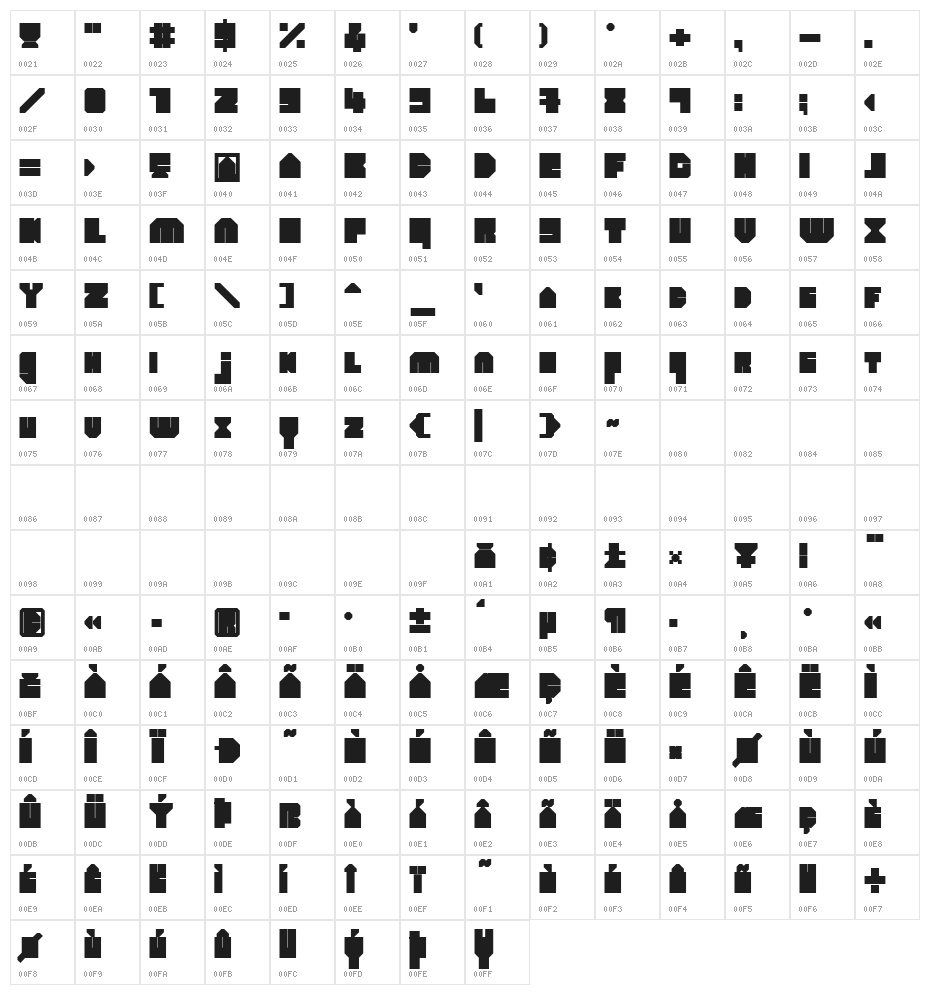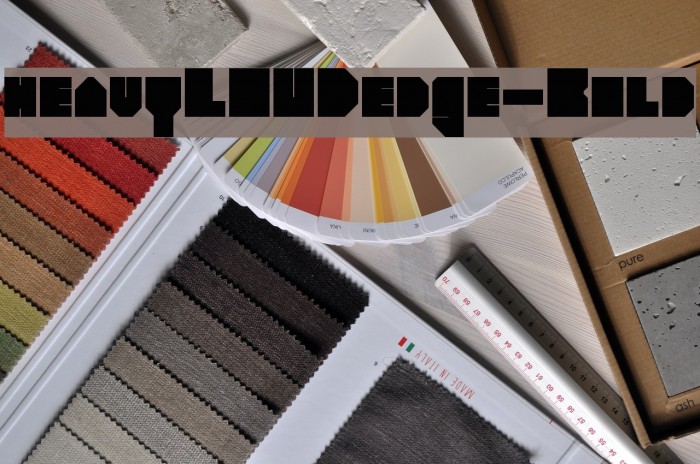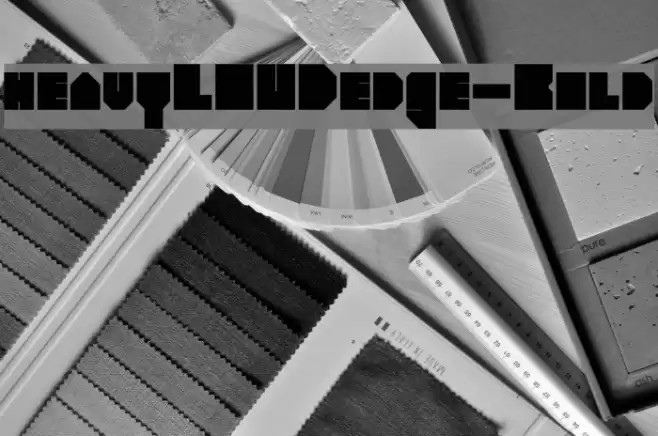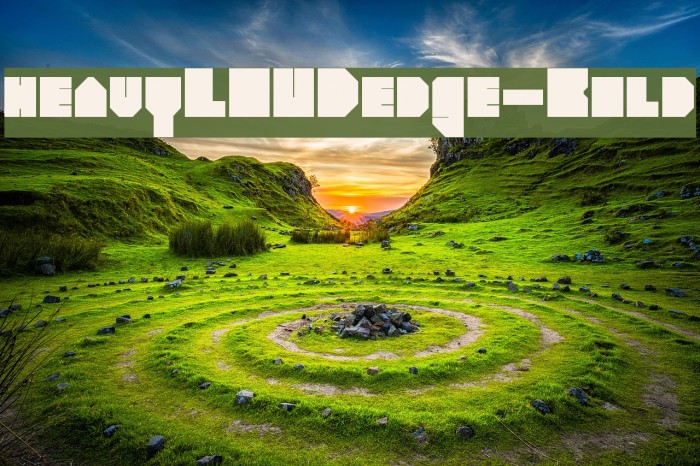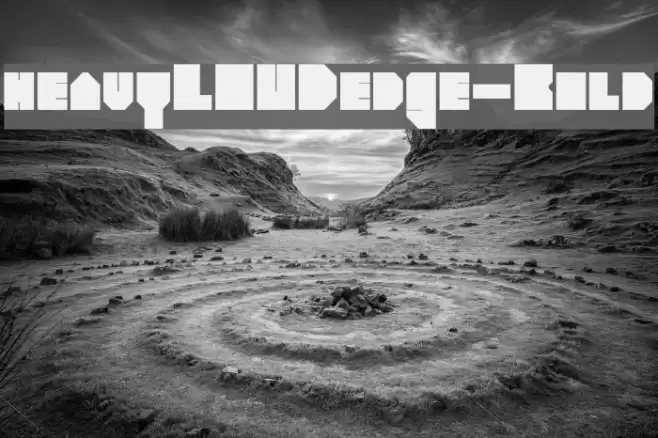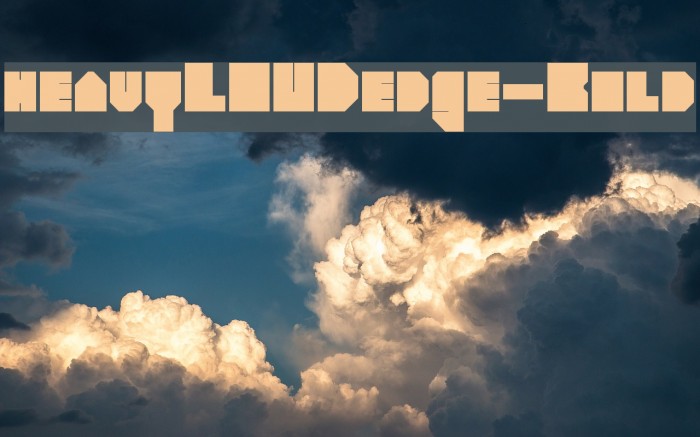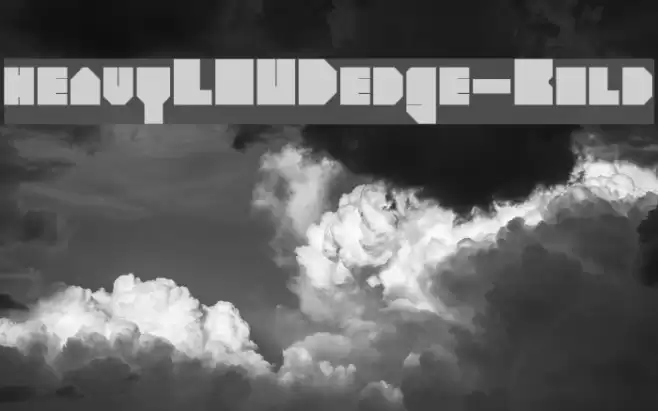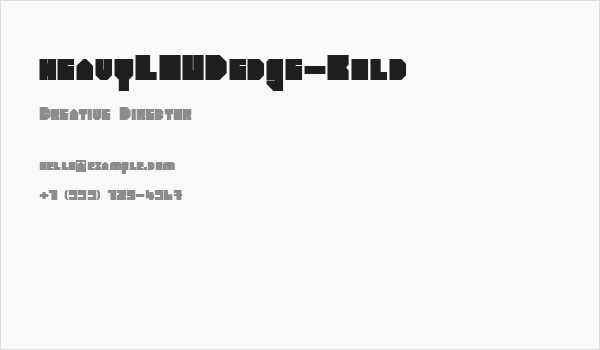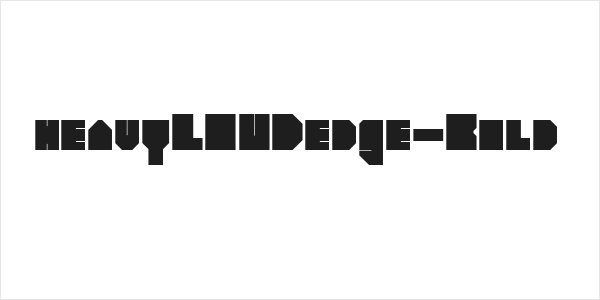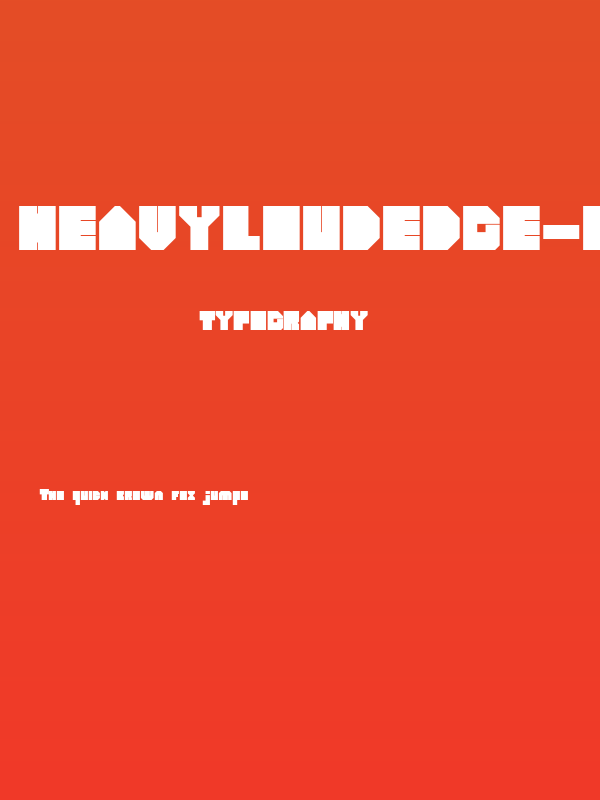
heavyLOUDedge-Bold Font
heavyLOUDedge-Bold Description
This font features a bold, geometric style with a heavy emphasis on angular shapes and sharp edges. The characters are constructed with thick, uniform strokes, giving them a strong and impactful presence. The design is reminiscent of industrial or futuristic aesthetics, with a blocky appearance that suggests strength and stability. Each letter and number is distinct, with minimal curves and a focus on straight lines and right angles. The font maintains a consistent weight throughout, ensuring a cohesive look across all characters. It is particularly suited for designs that require a bold statement or a modern, edgy feel.
| Proposed Projects | Ideal for use in branding, posters, headlines, and any design that requires a bold, modern look. |